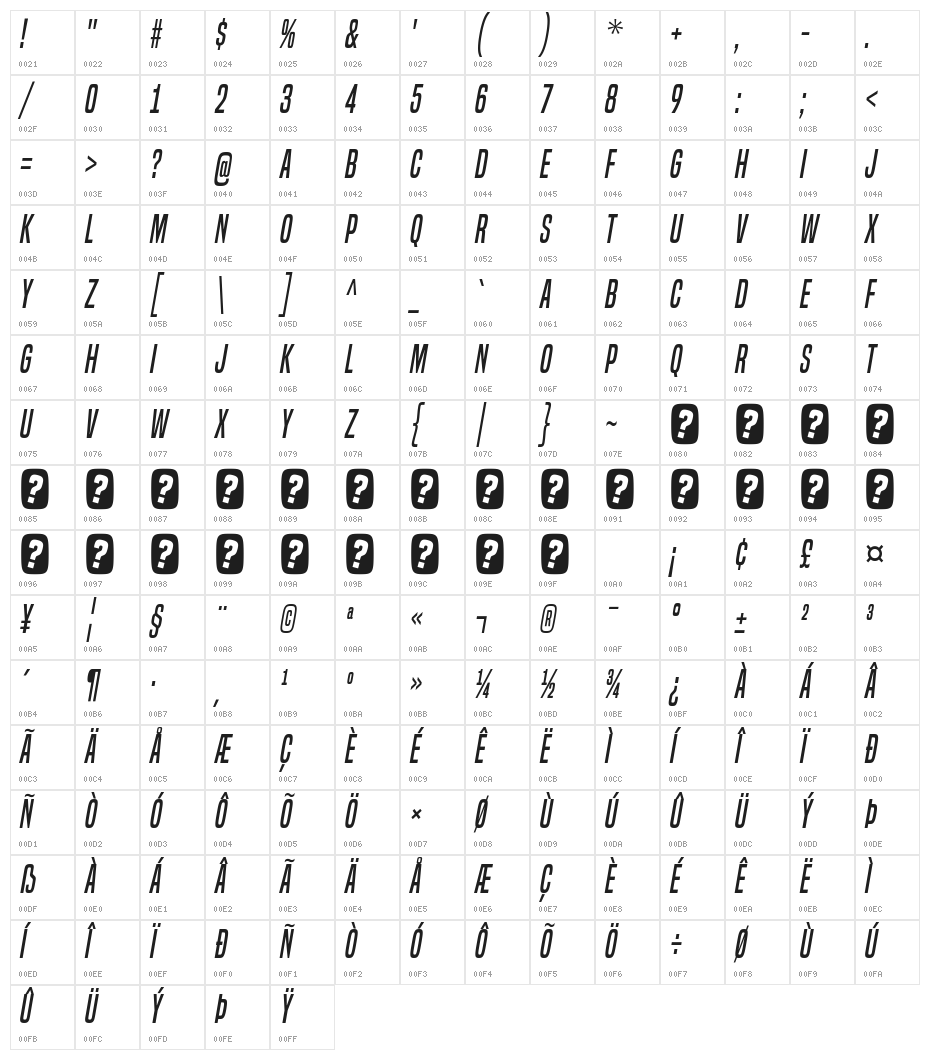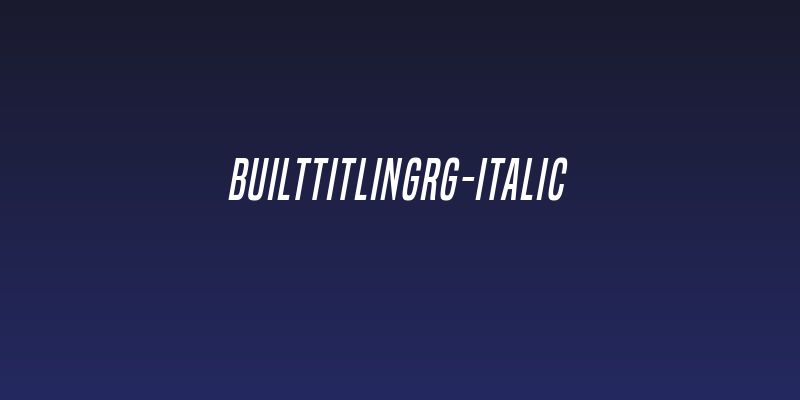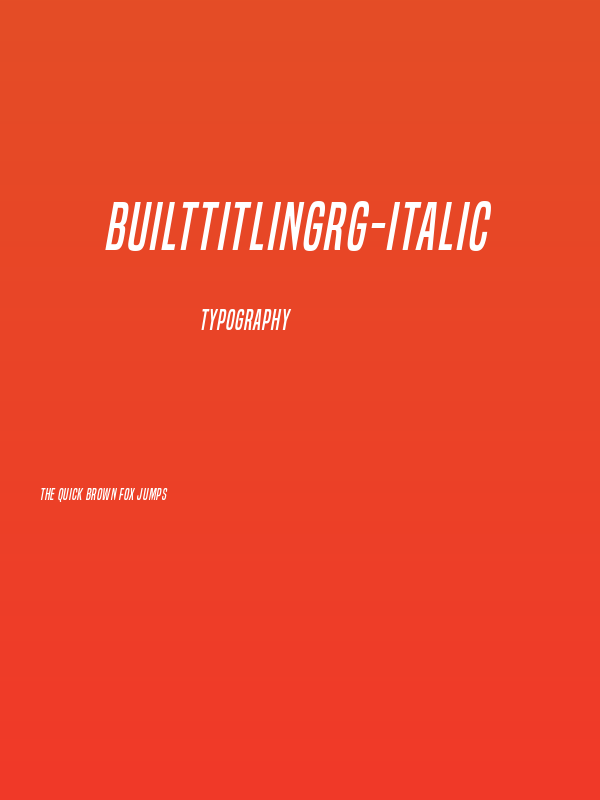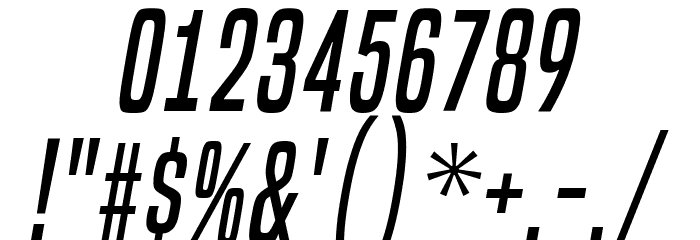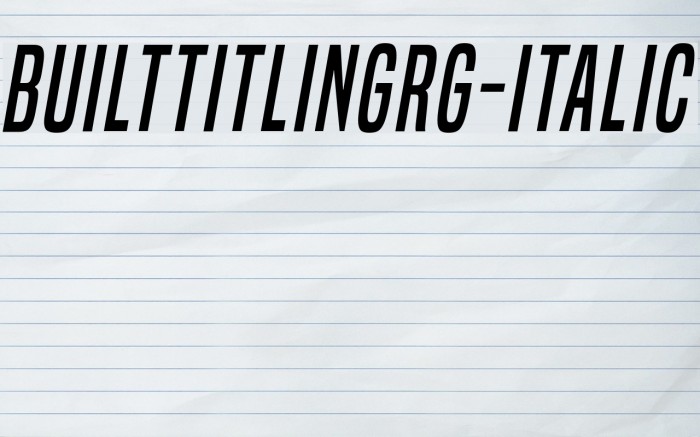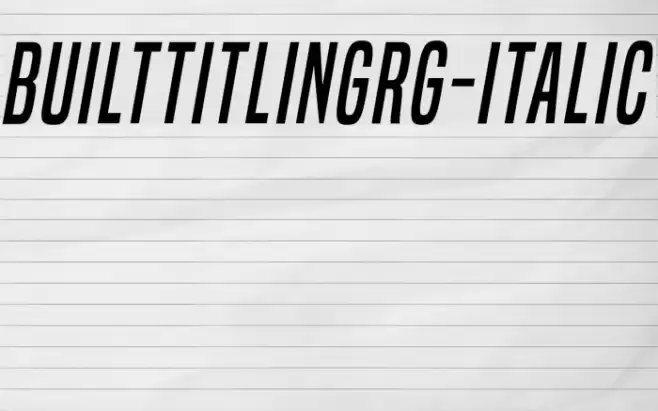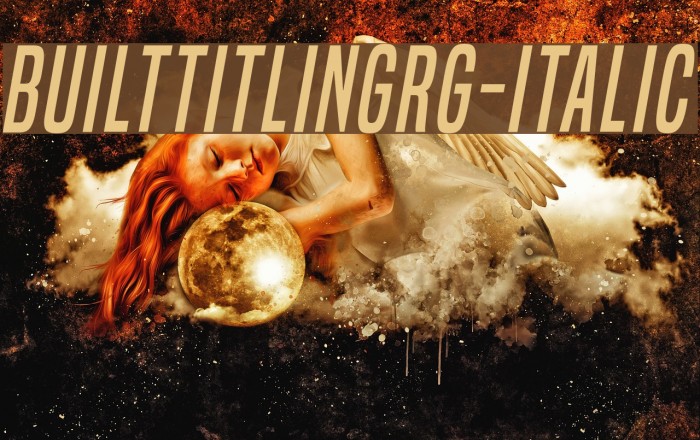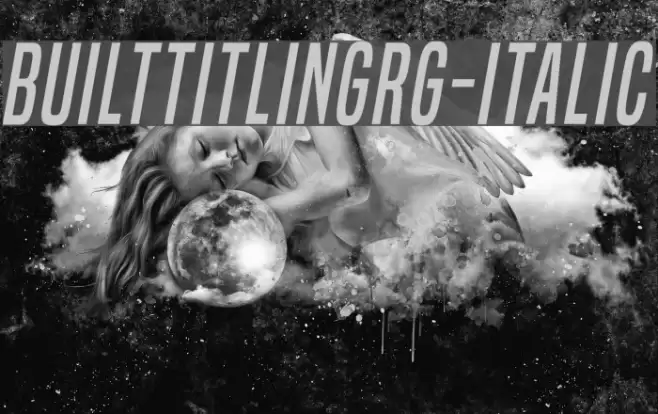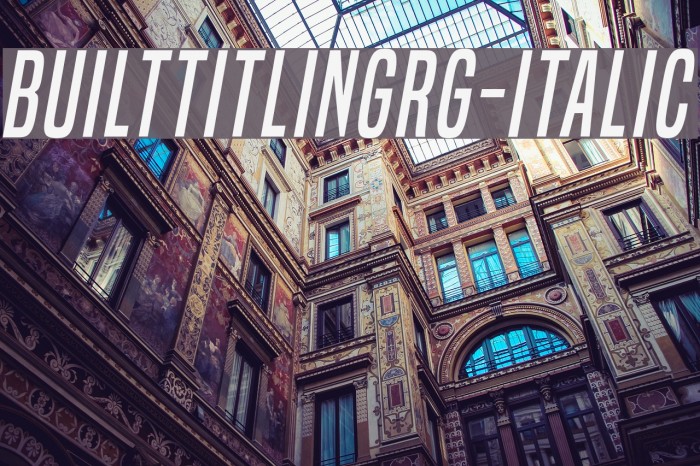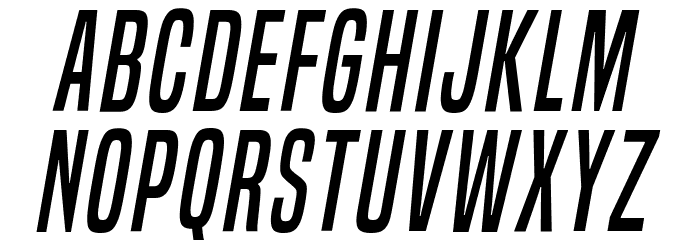
BuiltTitlingRg-Italic Font
BuiltTitlingRg-Italic Description
This font features a bold and dynamic italic style with a strong slant, giving it a sense of motion and urgency. The characters are tall and narrow, contributing to a condensed appearance that maximizes vertical space. The strokes are consistent in weight, providing a uniform look across all characters. This font is particularly effective for creating impactful headlines or titles that need to capture attention quickly. The numerals and special characters maintain the same italicized and condensed style, ensuring consistency throughout any text. The overall design is modern and sleek, making it suitable for contemporary projects.
| Proposed Projects | Ideal for headlines, posters, advertisements, and branding projects that require a bold and modern look. |